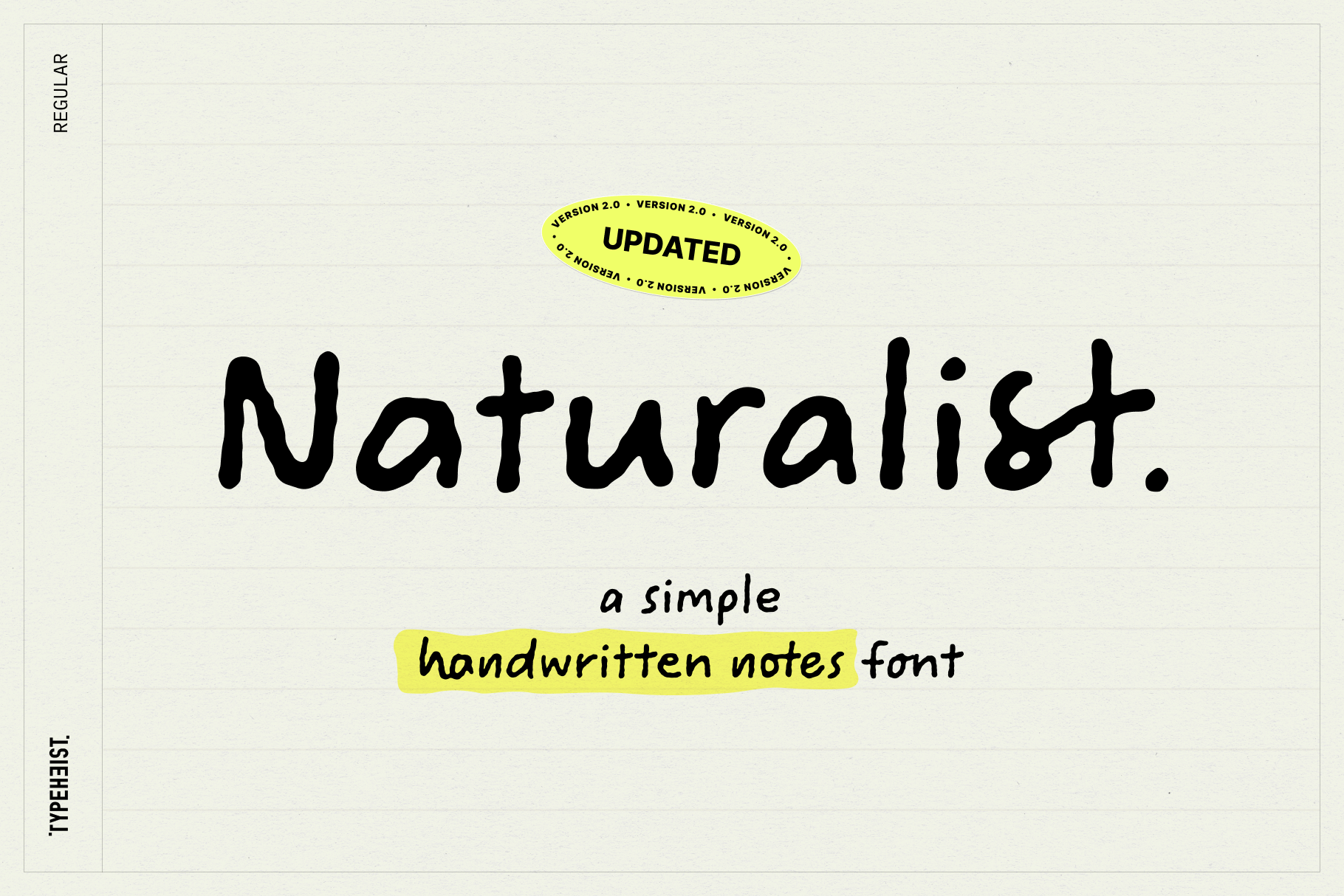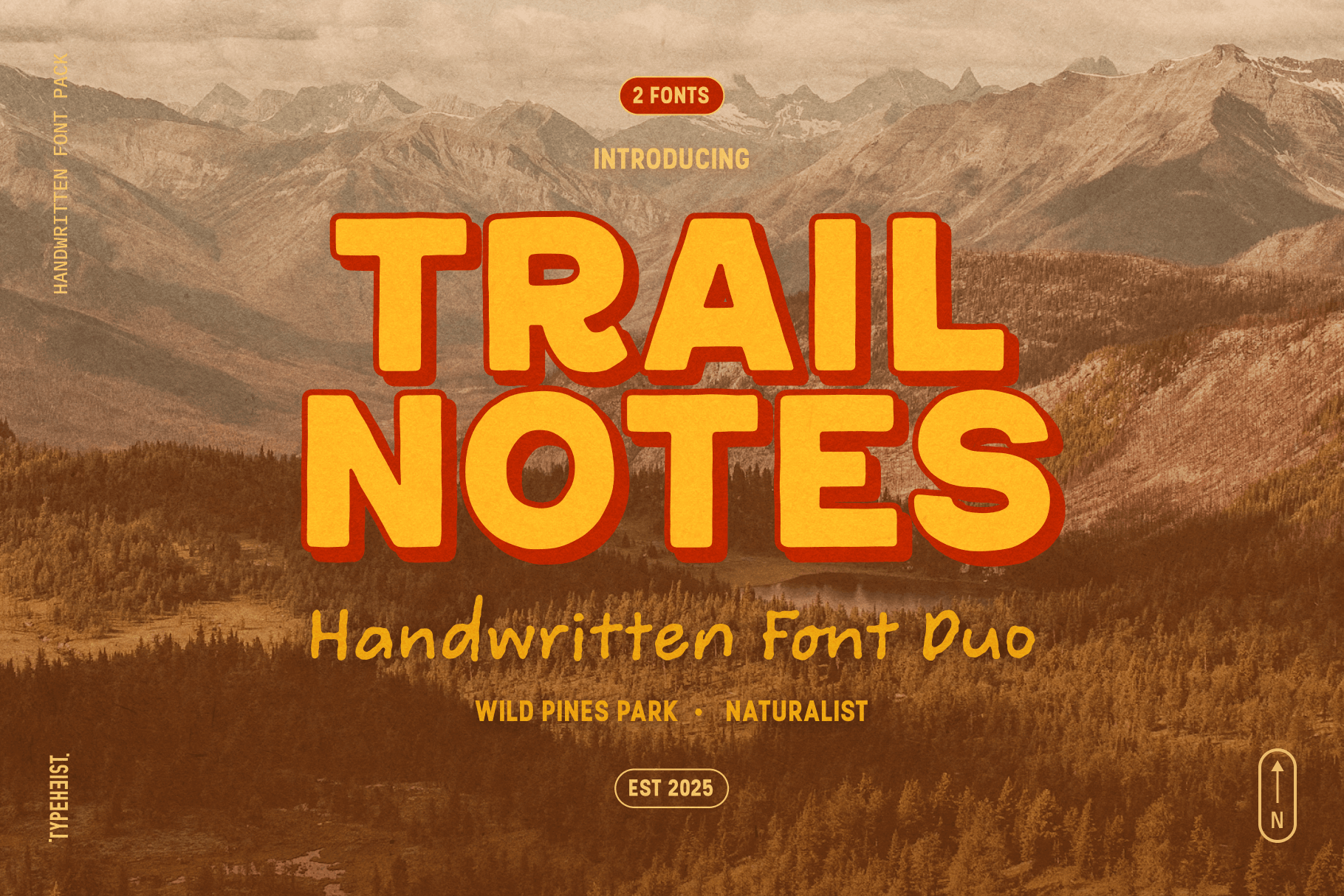
Trail Notes Font Duo
Trail Notes is a handwritten font duo made for people who like their type a little wild around the edges. Featuring Wild Pines Park and Naturalist, this relaxed, organic pair is perfect for journals, branding, packaging and any project that calls for an outdoorsy, handcrafted feel.
Wild Pines Park has that nostalgic, national park energy. A tiny bit rugged, a tiny bit vintage, and very “found this on the back of an old field guide”.
Naturalist is a simple, charming handwritten notes font with a friendly, slightly textured finish. It’s ideal for annotations, labels, small text moments and anywhere you want a warm, realistic touch.
The best bit? They’re designed to work together, so pairing fonts becomes one less thing to worry about.
Both fonts have been recently updated to include multilingual characters, along with improved kerning, spacing and overall feel, making them smoother and easier to use across your designs.
- Unique handcrafted fonts with a range of glyphs and ligatures
Trail Notes is made for anyone who prefers character over perfection. If your work lives somewhere between wild places, notebooks and stories worth keeping, this font duo will feel right at home in your toolkit.